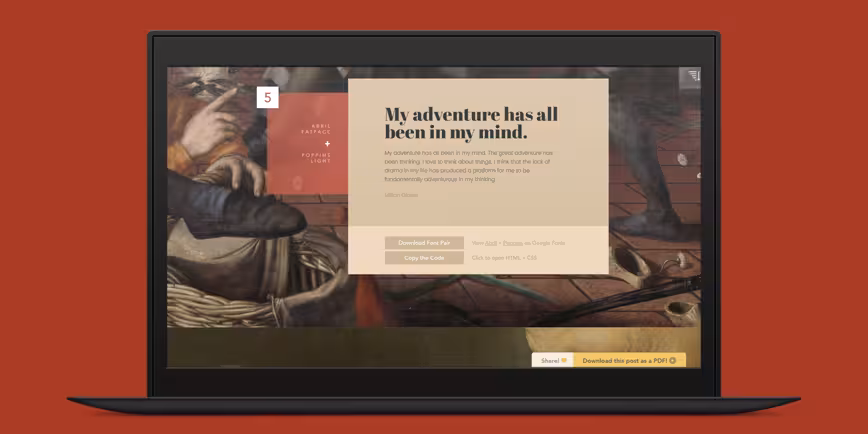
There are several nifty ways to go about pairing fonts for your design projects, including this machine learning-based tool and this Tinder-style app. But if you just want to see some great combinations, you’ll want to check out this excellent guide by designer Lou Levit.
It features 50 top-notch pairings that draw from Google’s extensive web font collection – so you can grab all the typefaces you like for free, and use them on web design projects – and they’re matched with beautiful classic art.
The pairings are organized and navigable by font style and mood (choose from Modern, Striking, Eccentric, Classic, Minimal, Neutral, and Warm). That’s handy for quickly finding a combination that suits your needs, whether it’s to professionally present information or announce an event. Plus, you can download the entire guide as a PDF.